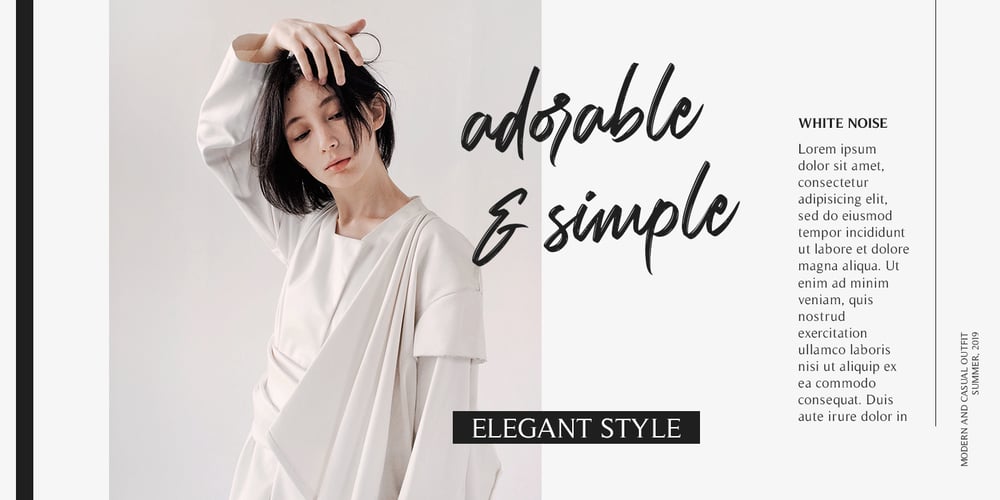
Carolissa Font Family was designed by Anton Cahyono and published by Motokiwo. Carolissa contains 1 styles and family package options. Carolissa is a script brush font with handwriting style. It’s a simple and classy font that is suitable for various design project. With dynamic and spontaneous flow gestures, Carolissa will add more drama to your project. This font includes uppercase, lowercase, numeral, punctuation, ligature, and the multilingual support is also already PUA encoded. I believe in Leonardo da Vinci, that “Simplicity is the ultimate form of sophistication.” If you have any issue or question, don’t hesitate to drop me a message or email at motokiwodesign@gmail.com. I hope you enjoy the font!